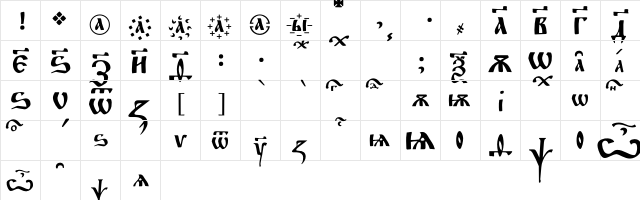
FitaChirchC Regular
Design Context for FitaChirchC Typeface
FitaChirchC is a composed and adaptable typeface that performs quietly and consistently across a wide range of design contexts.